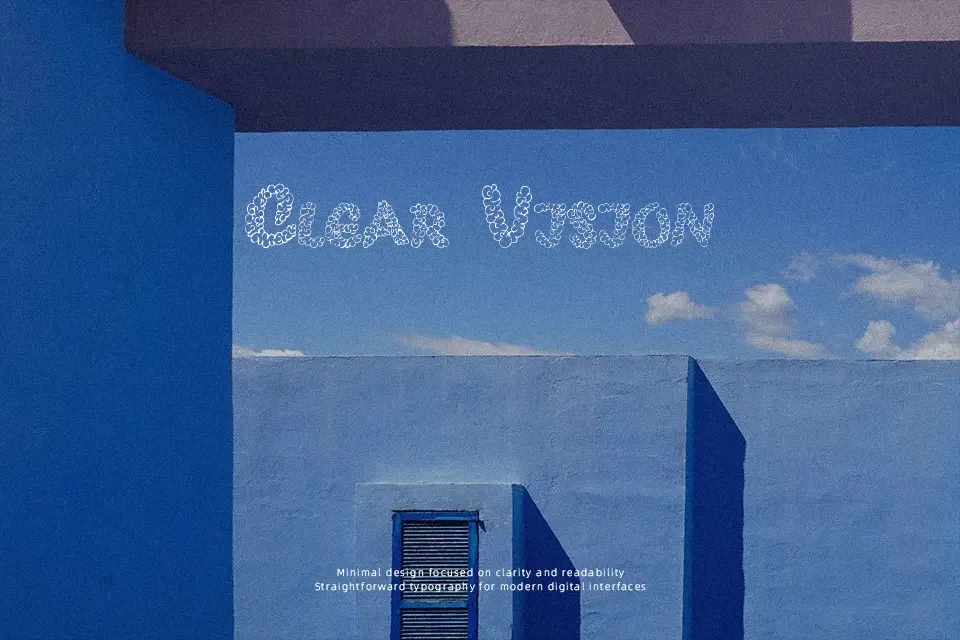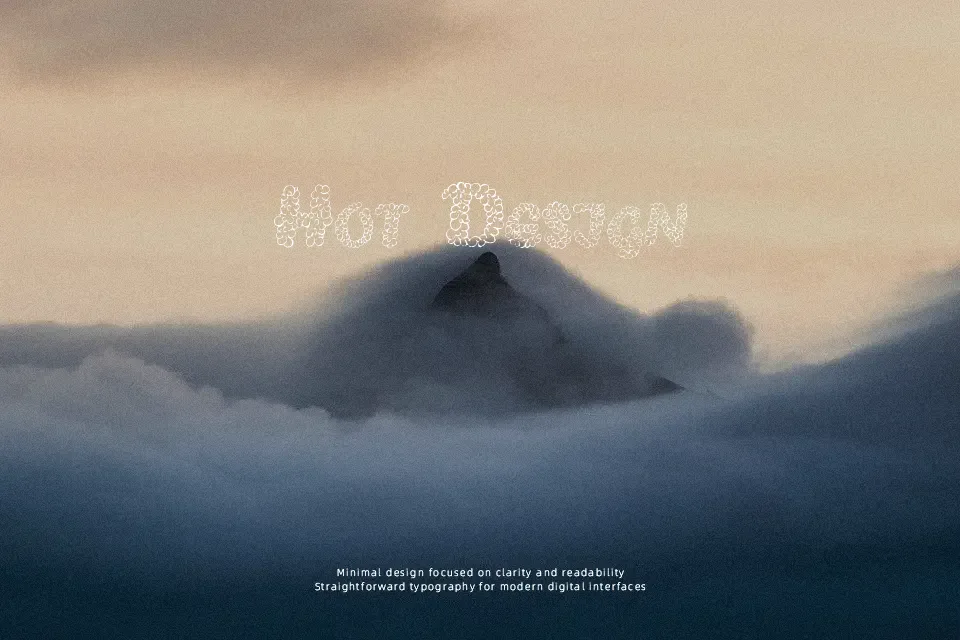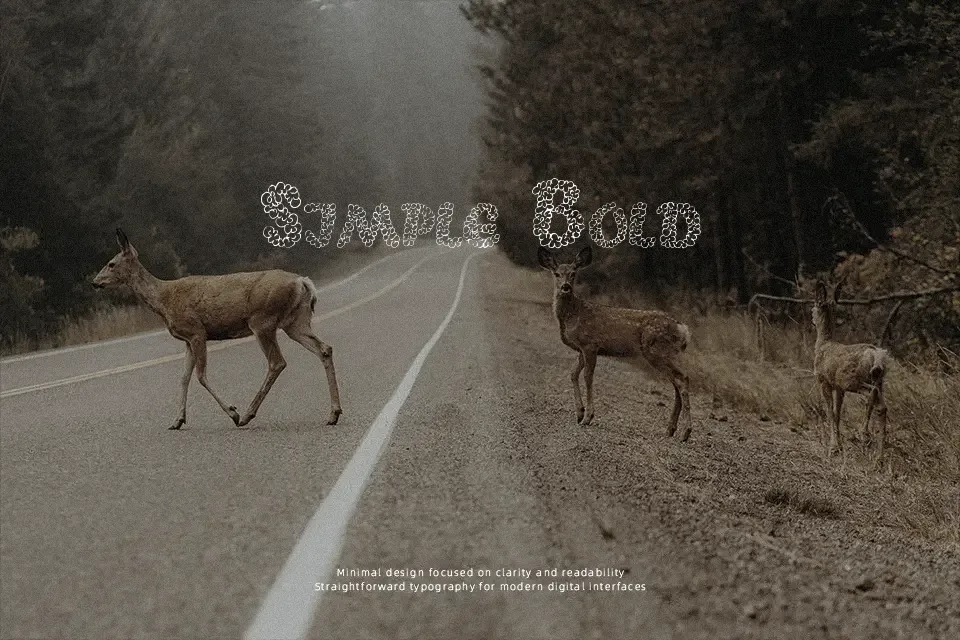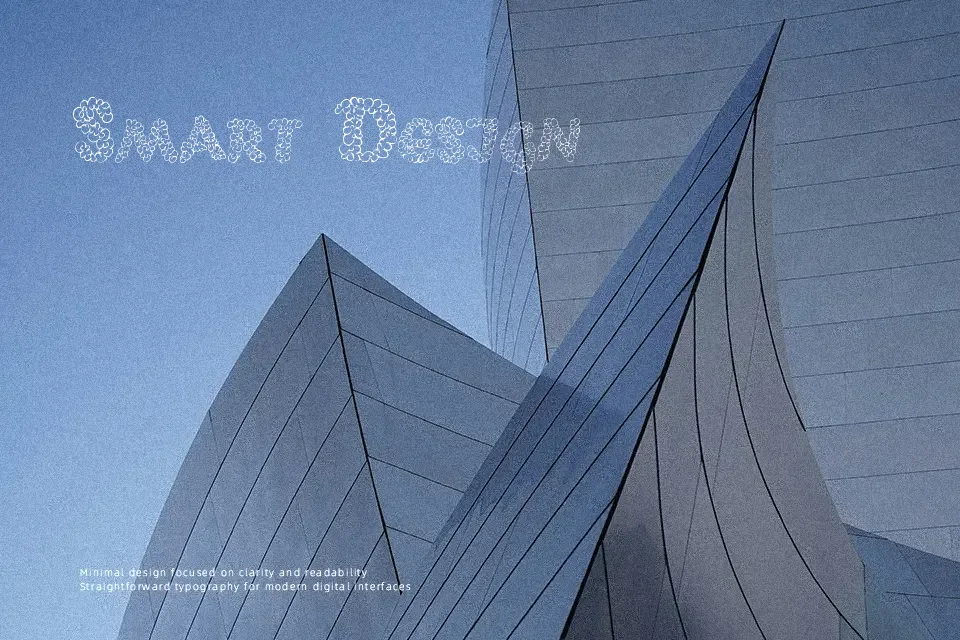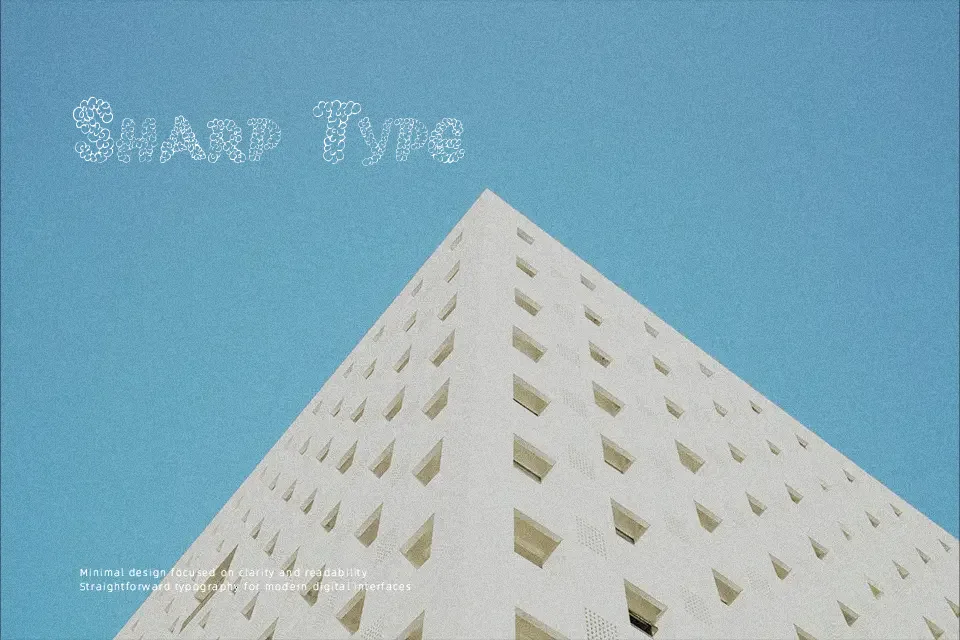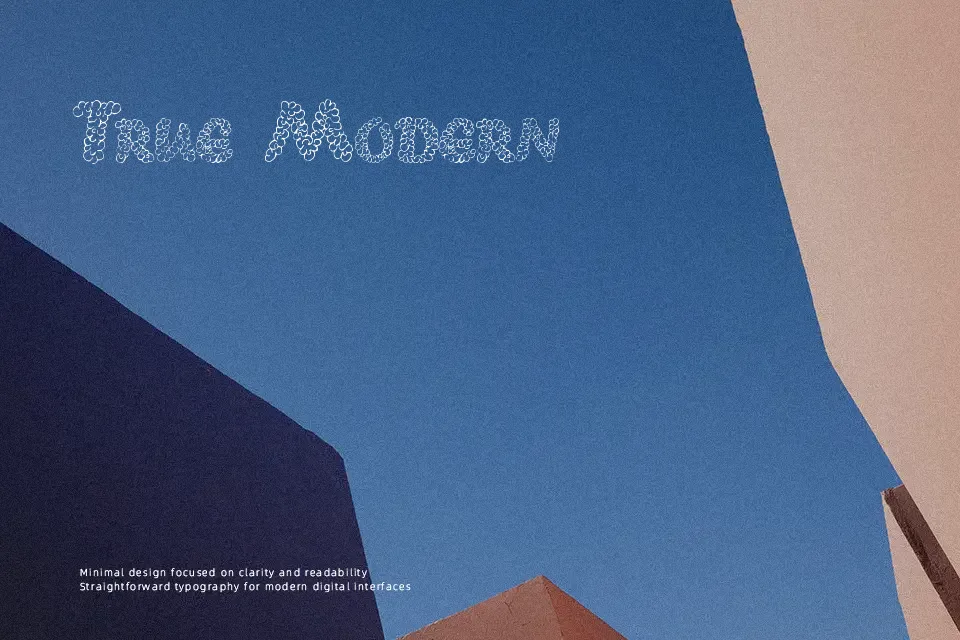
Popcorn EBO Font
Designed by Digital Typeface Studio
Popcorn EBO Font presents a playful decorative structure defined by heavy, rounded strokes and a bubbly visual rhythm. The letterforms showcase generous proportions and dense character widths, giving each glyph a bold, substantial appearance. Its tight but balanced spacing ensures solid visual harmony, making the design feel energetic and cohesive. This typeface performs exceptionally well in large-scale applications like festival posters, casual food packaging, and fun branding where visual impact is a priority. The thick strokes help maintain strong visibility in large display text, naturally drawing the viewer’s attention. However, its heavy, decorative forms reduce comfort during extended reading, making it less suitable for long paragraphs or small captions where tight spacing may reduce clarity.
casual food packaging
festival event posters
playful brand logos
children’s apparel graphics
Perfect for headline, kids, and logo, with a bold and decorative style.